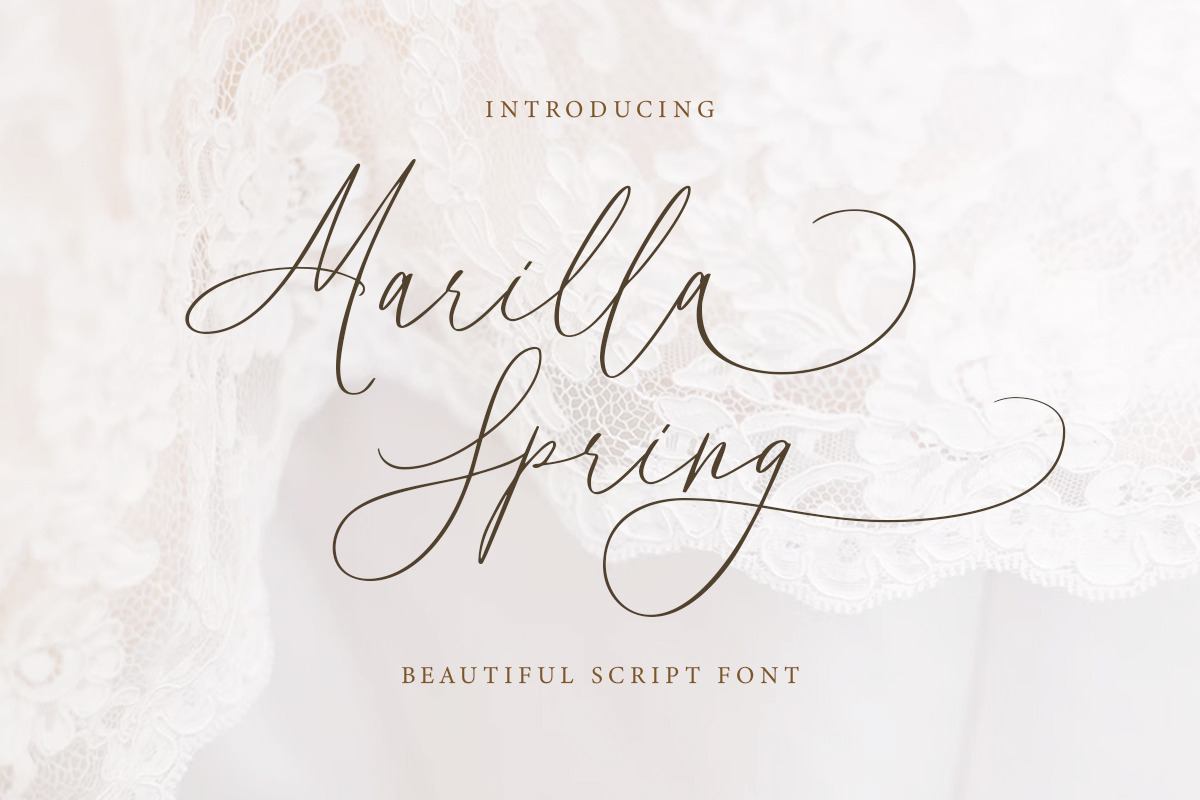
Marilla Spring - Beautiful Script Free Download
Marilla Spring - Beautiful Script Font Free Download
Let your designs blossom with the Marilla Spring - Beautiful Script Font Free Download — a graceful, flowing script font that captures the softness and renewal of springtime. With its elegant curves, smooth strokes, and hand-lettered charm, Marilla Spring is perfect for wedding invitations, greeting cards, feminine branding, product packaging, and seasonal social media content.
This font feels like a breath of fresh air — romantic, natural, and effortlessly beautiful. Whether you're designing for a bridal collection, a floral boutique, or a cozy quote post, Marilla Spring adds a delicate touch of beauty and emotion to every word.